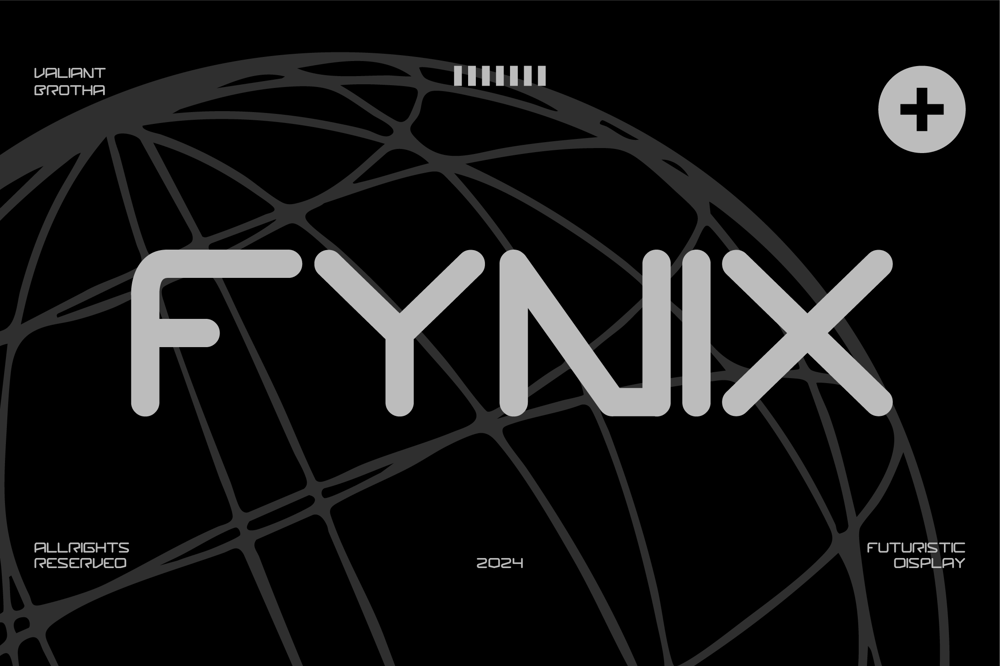
Fynix Font Family was designed by Agus Prima and published by Valiantbrotha. Fynix contains 1 styles and family package options. Introducing Fynix Font, a cutting-edge typeface that fuses sleek geometric precision with bold creative flair. Its sharp angles and smooth curves create a harmonious balance that’s perfect for the modern visionary. Whether you’re designing a tech-inspired app, crafting a sci-fi masterpiece, or building an innovative brand identity, Fynix Font delivers unmatched versatility and a futuristic aesthetic. Elevate your projects with a font that speaks the language of tomorrow—dynamic, sophisticated, and undeniably unique.